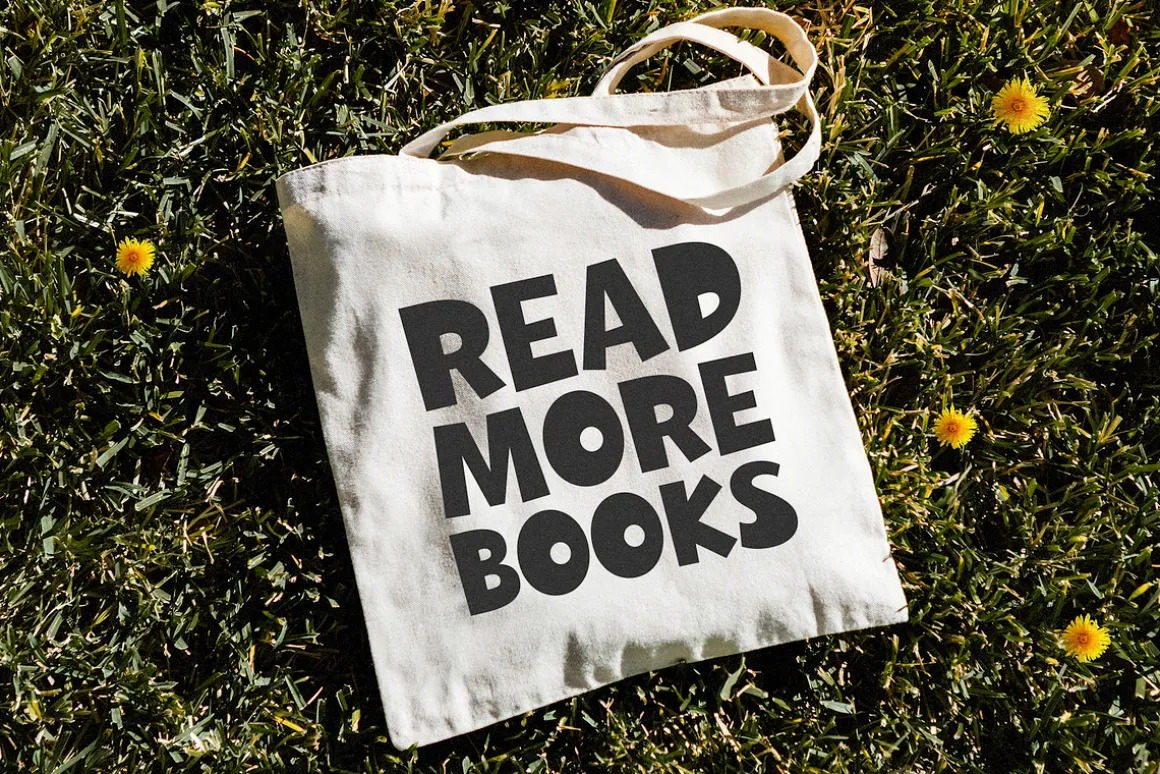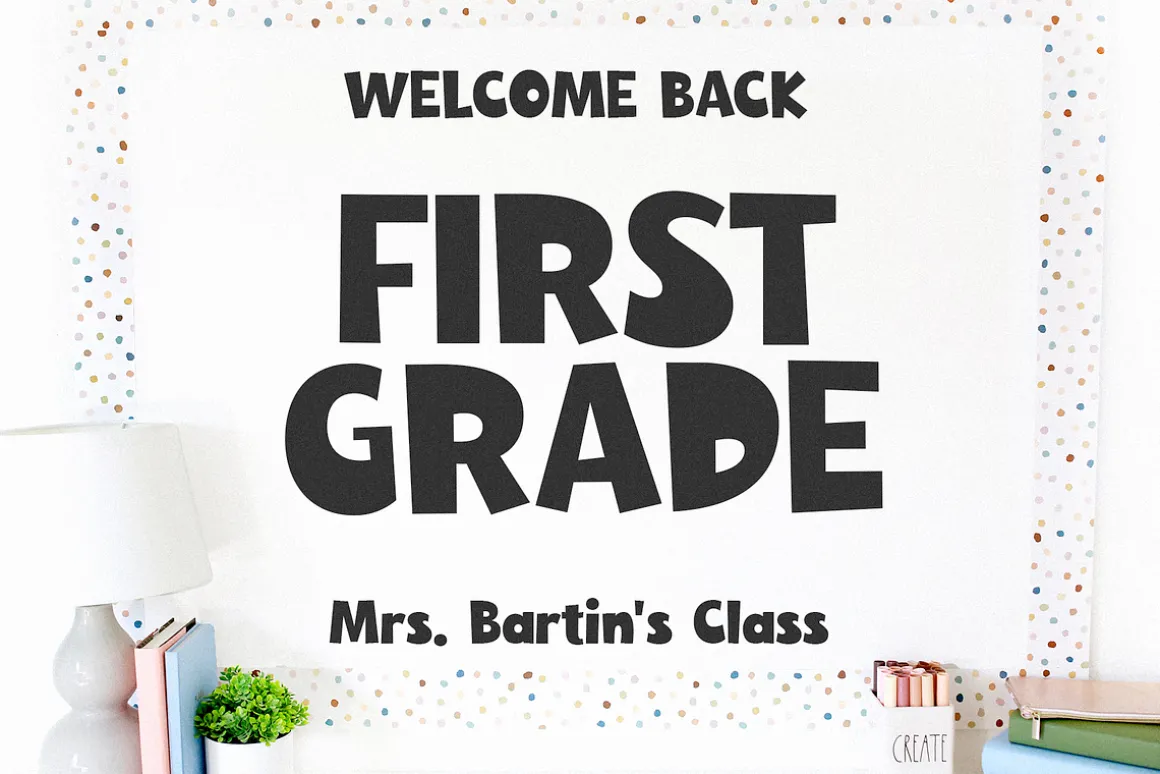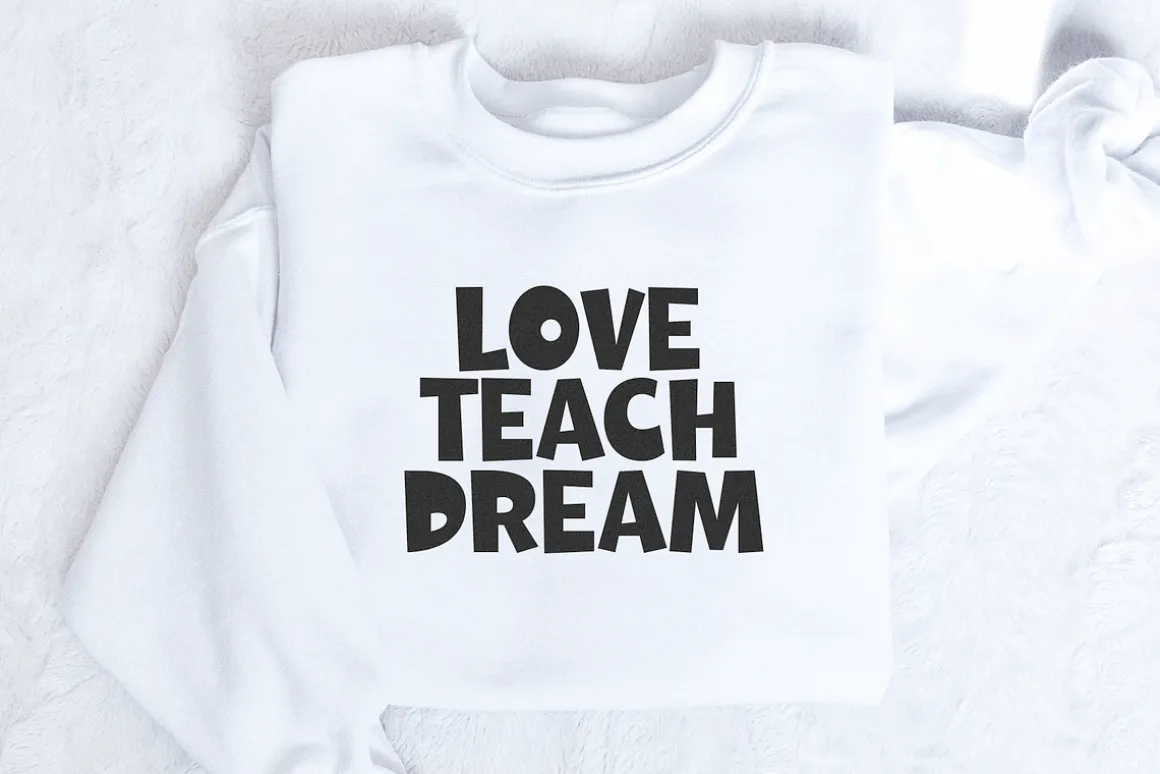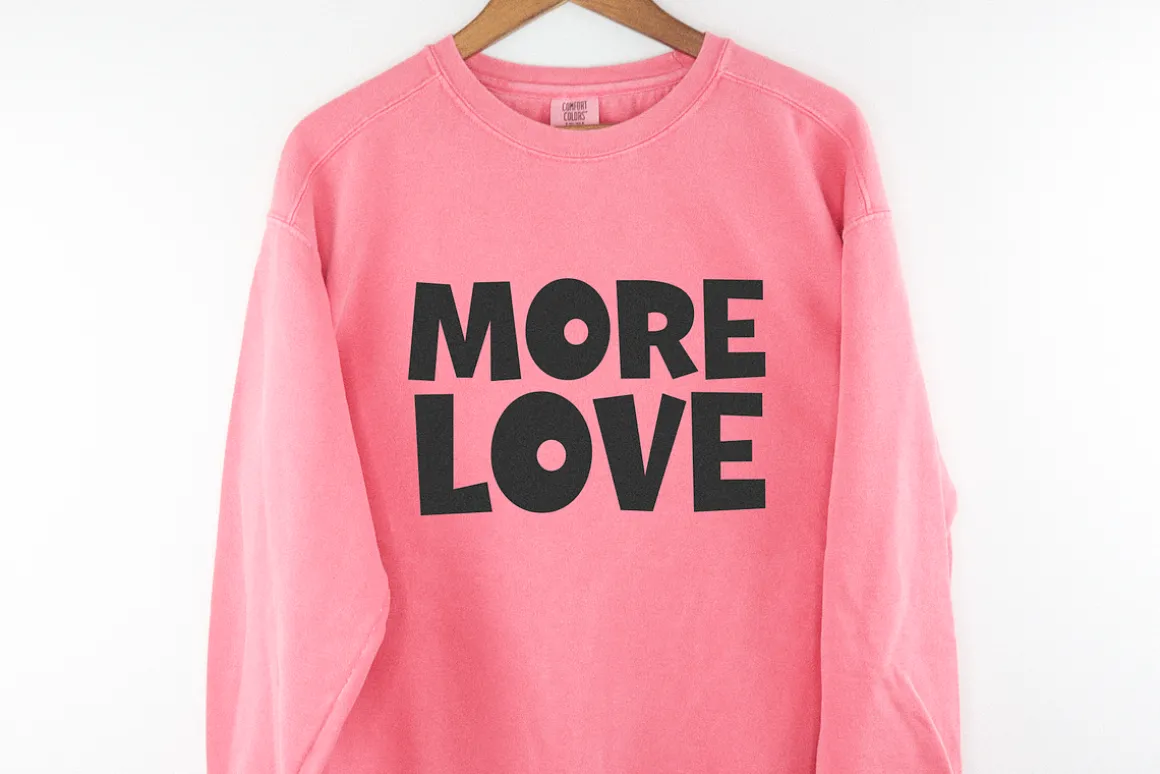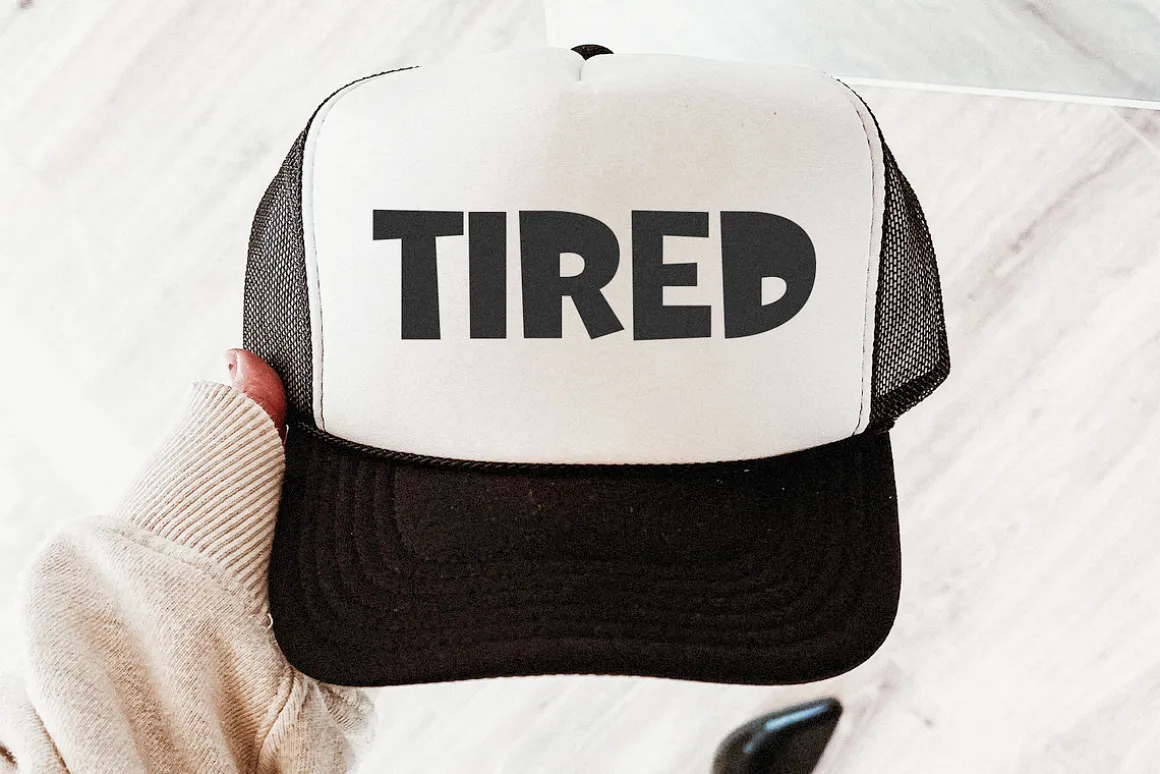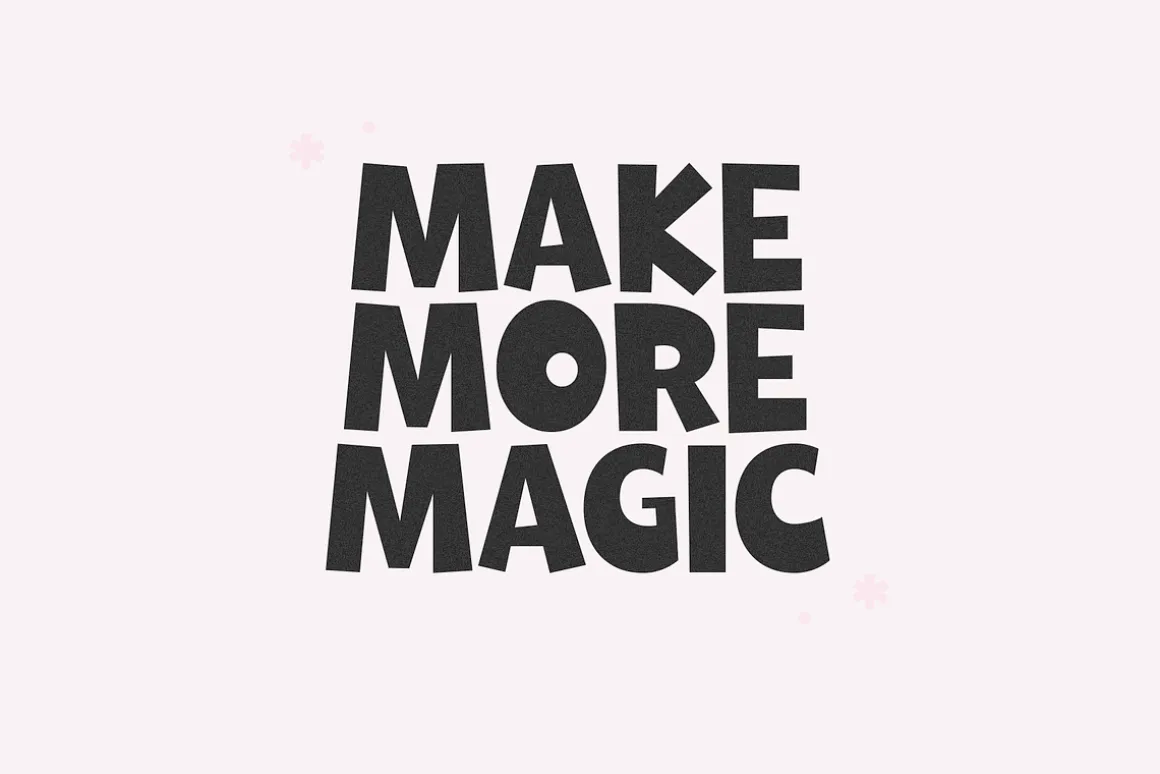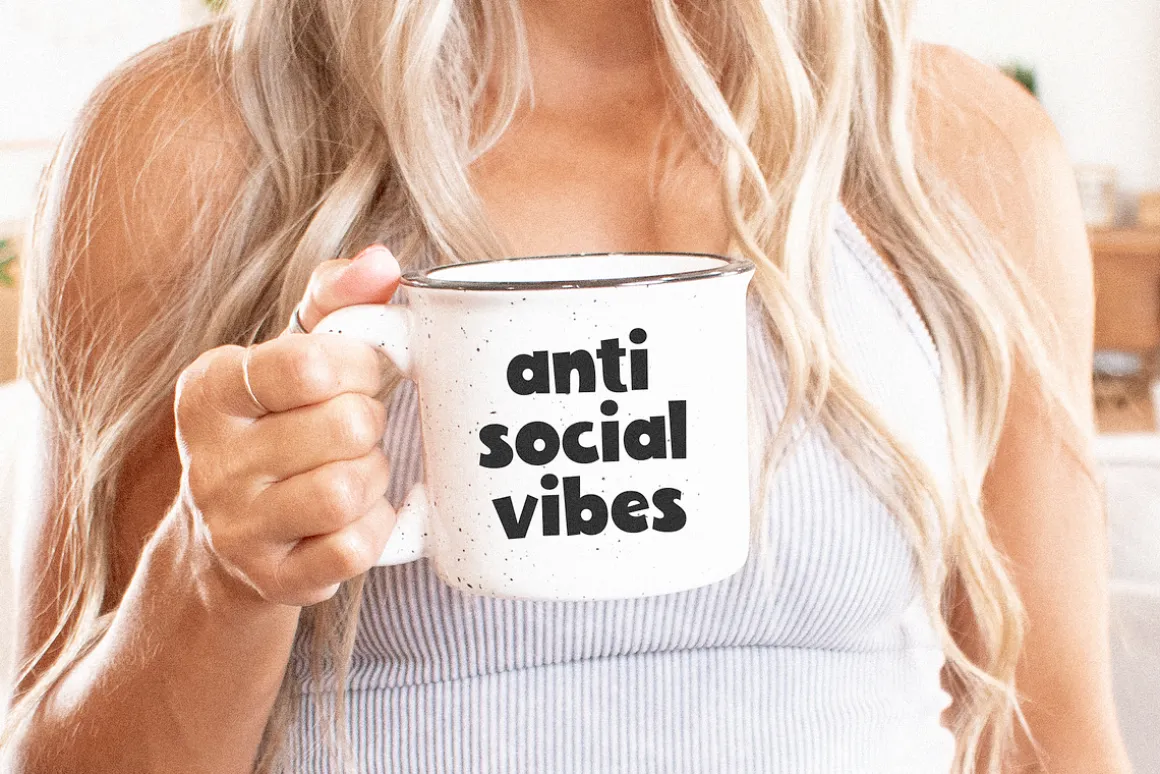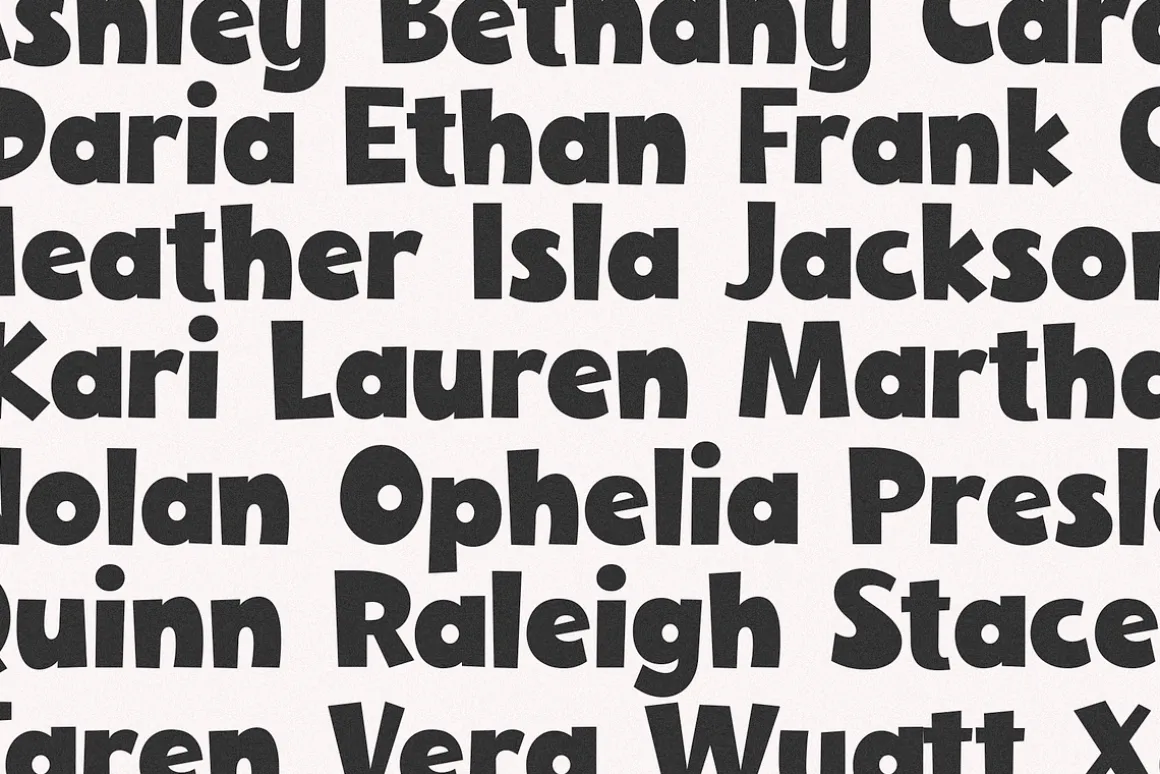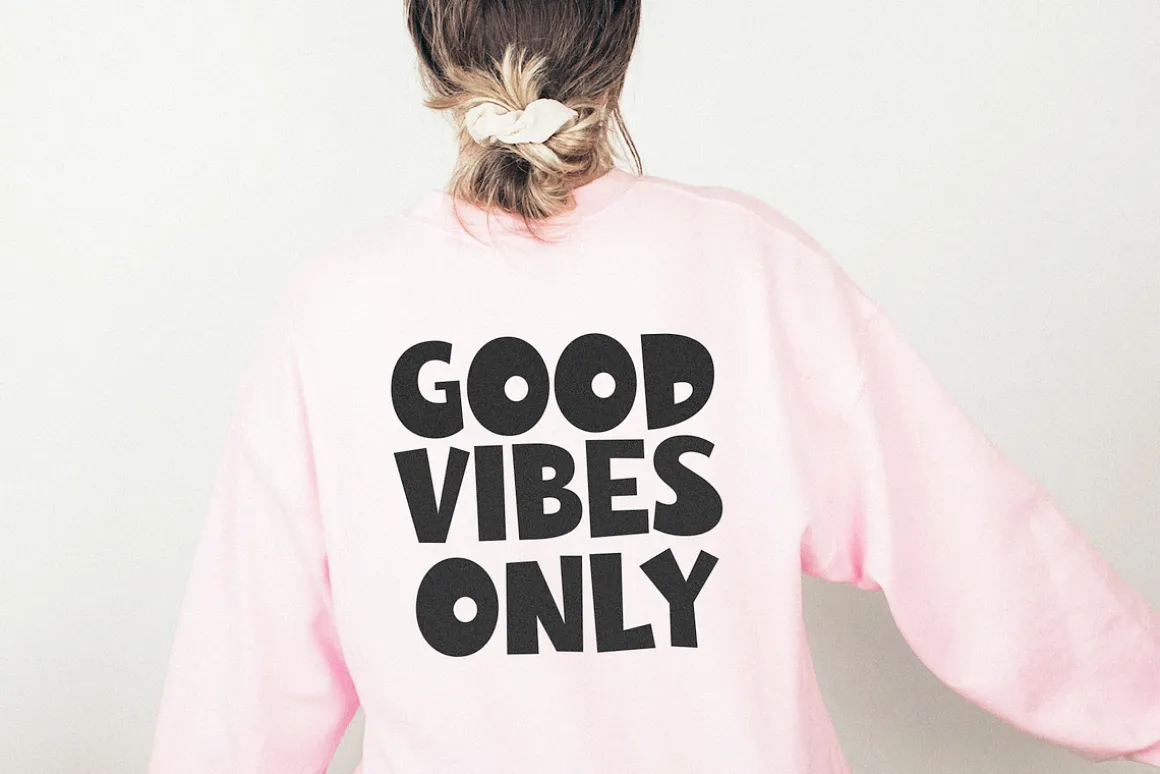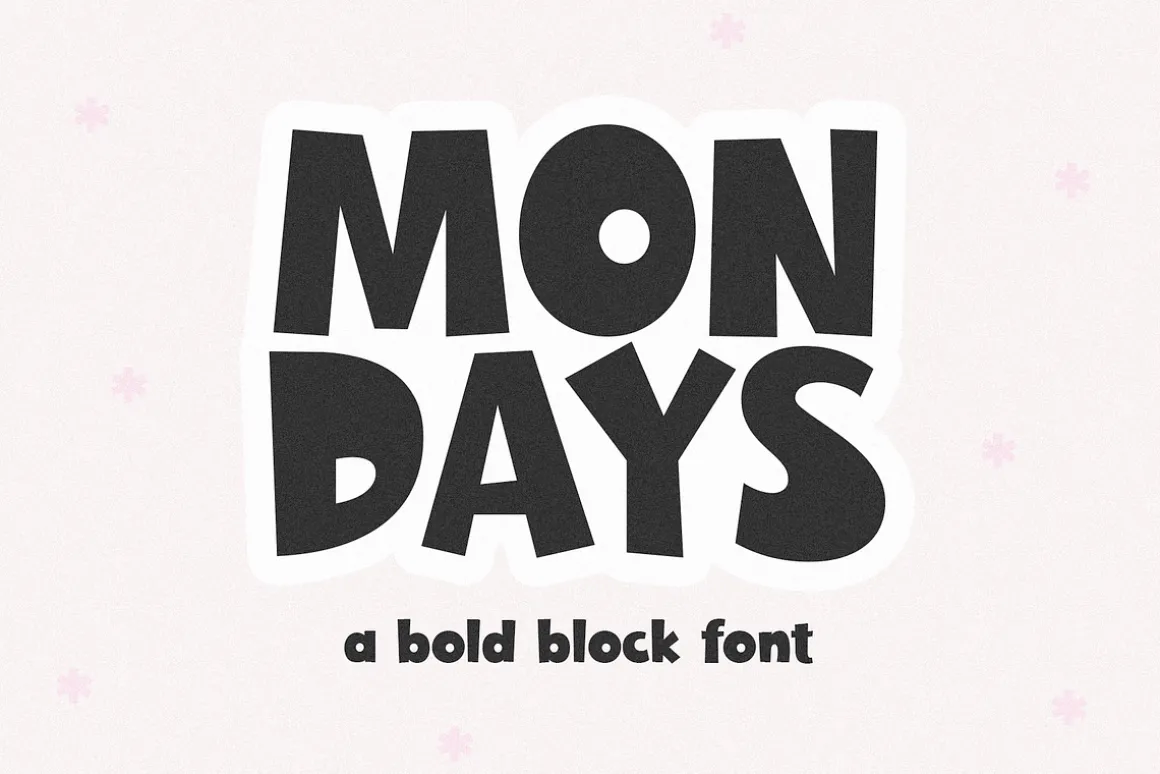
Mondays is a fun block font.
This font is perfect for your craft projects, svg files, procreate, teachers, social media quotes, shirts, stickers, and more!
Mondays is a fun block font.
This font is perfect for your craft projects, svg files, procreate, teachers, social media quotes, shirts, stickers, and more!